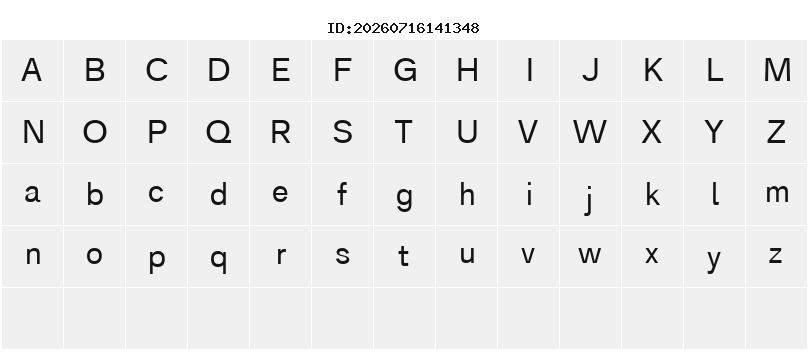
Analogue Reduced Preview
• Font Name: Analogue Reduced
• Font Style: 55 Regular
• Font ID: IngoZimmermann: Analogue Reduced 55 Regular: 2010
• Full Font Name: Analogue Reduced 55 Regular
• Designer: Ingo Zimmermann
• Manufacturer: Ingo Zimmermann
Analogue Reduced.ttf is a modern, elegant sans-serif font designed for ultimate readability and visual harmony. Perfect for branding, headlines, web design, and print materials.